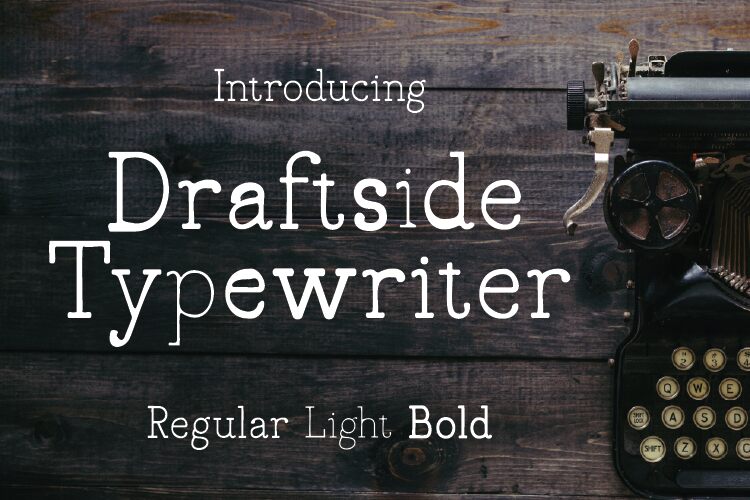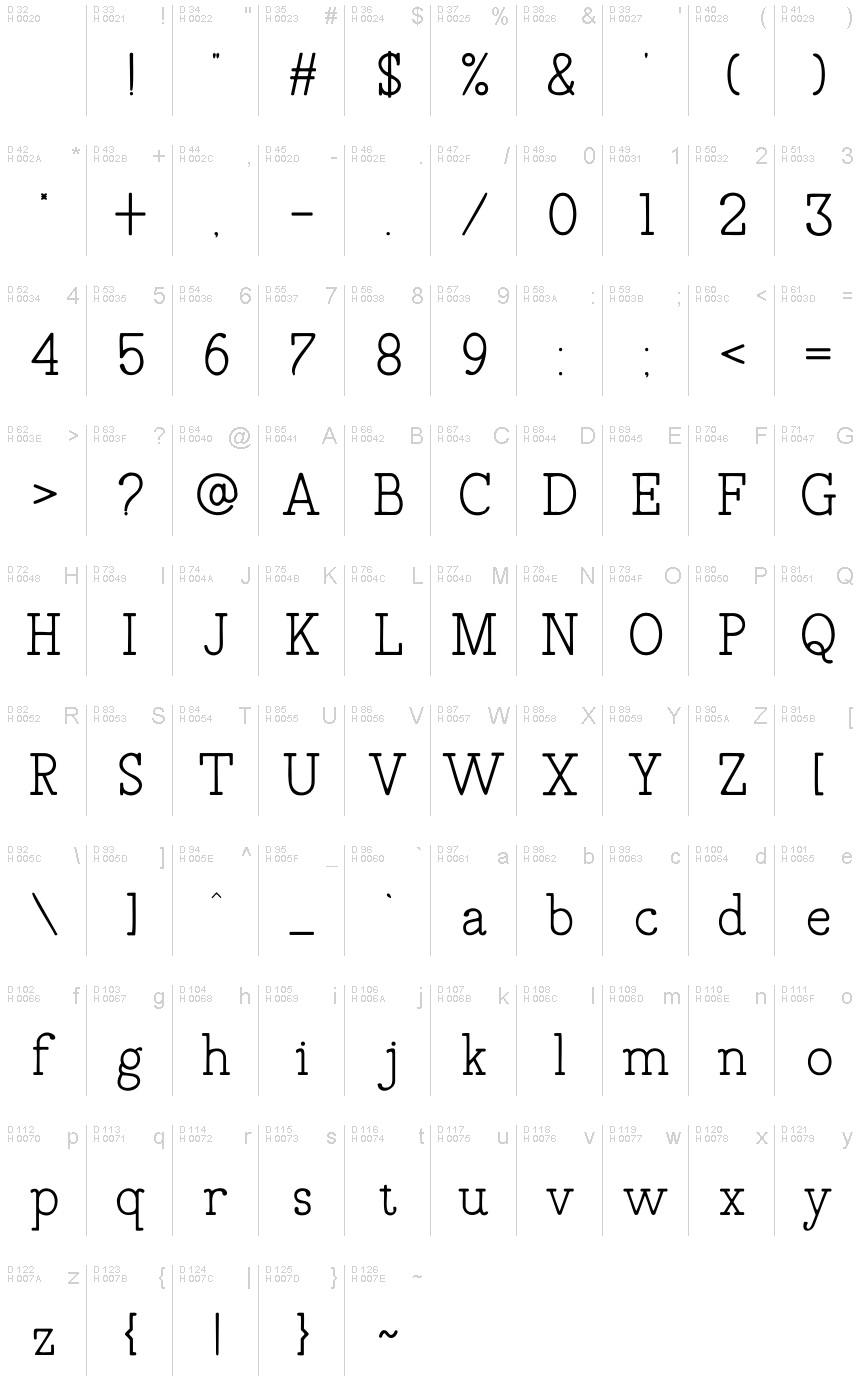
Draftside
Draftside, a display font crafted by the Rvandtype Foundry, exudes a captivating retro aesthetic. Its bold, geometric letterforms and striking visual presence evoke a sense of nostalgia and industrial charm. The font's clean lines and harmonious proportions create a visually compelling and impactful typographic experience.
Draftside's versatility makes it an excellent choice for a wide range of design applications, from eye-catching headlines and signage to bold branding and packaging. Its retro-inspired character lends itself particularly well to projects that aim to convey a vintage or industrial-inspired aesthetic, such as posters, album covers, and product labels. Draftside's distinctive style can also be effectively utilized in modern design contexts, adding a touch of vintage-inspired flair to contemporary publications, websites, and visual identities.